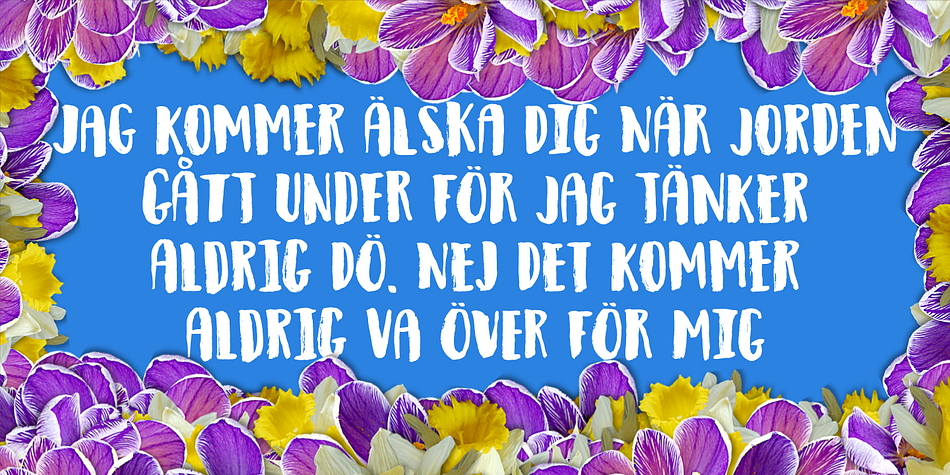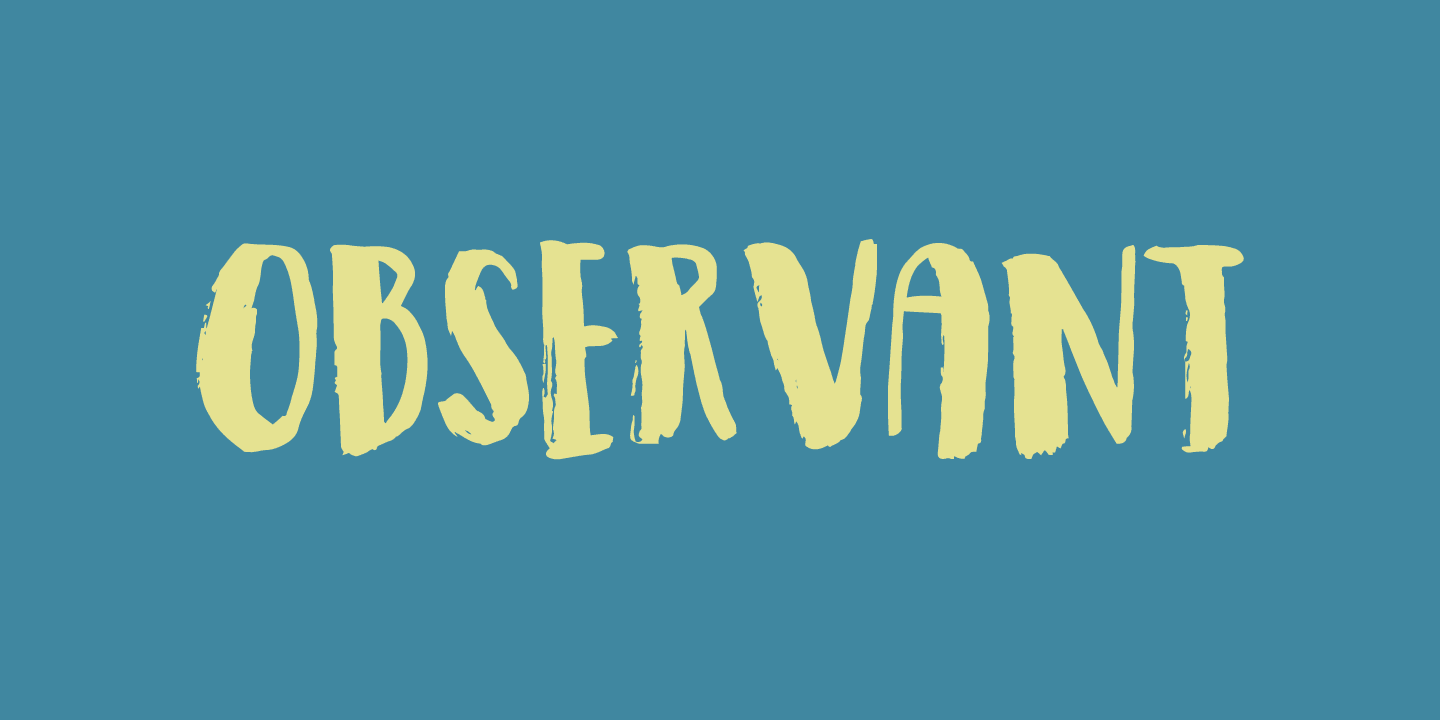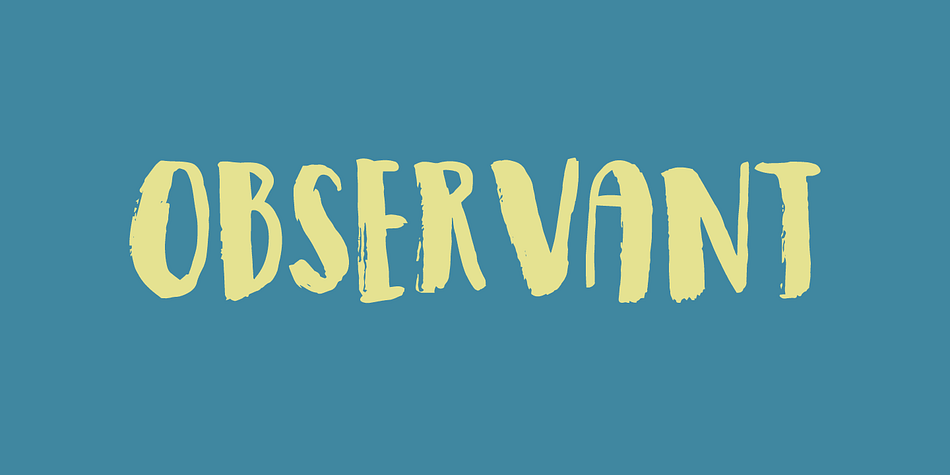
Observant is a brush display font published by Pizzadude.dk.
Observant is your true partner when you want something with a handwritten attitude. Works great with invitations, greeting cards, presentations and alike. Each letter has got 7 different versions, which automatically cycles as you type. This is a neat trick to make your text look more random, and avoid repeating letters.
Comes with extensive language support!